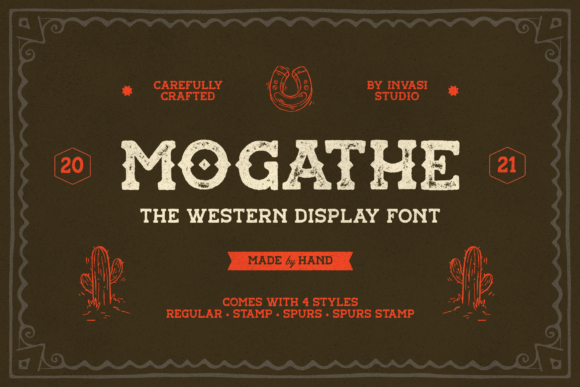
Looking for the best fonts for print that can capture the essence of the West life Era? Look no further than Mogathe Font, the latest addition to our collection of high-quality fonts.
Created by invasistudio, Mogathe Font is a slab serif font that evokes a vintage look and feel. It's perfect for designers and creatives who want to add a touch of retro style to their projects, whether it's a magazine layout, a poster, or a book cover.
But Mogathe Font isn't just stylish - it's also incredibly versatile. Whether you're designing for a corporate client or a small business, Mogathe Font is sure to make your text stand out. Its clean lines and bold serifs make it easy to read, while its unique character gives it a personality all its own.
So why choose Mogathe Font over other fonts in our collection? For starters, it's packed with personality. Inspired by the West life Era, it captures the spirit of a time when things were a little simpler and a lot more stylish. Whether you're creating a vintage logo or a retro-themed website, Mogathe Font is the perfect choice.
But Mogathe Font is more than just a pretty face - it's also incredibly functional. With its slab serif design, it's perfect for print applications, ensuring that your text is easy to read and stands out from the crowd. And with its clean lines and bold serifs, it's also great for digital applications, ensuring that your text looks great on any screen.
In short, if you're looking for a font that combines style and function, look no further than Mogathe Font. With its vintage look and feel, its bold serifs, and its versatile design, it's the perfect choice for any project.